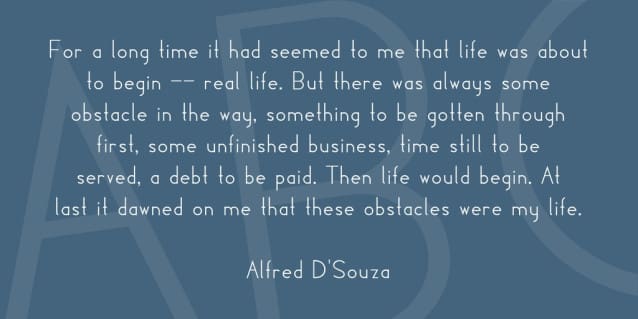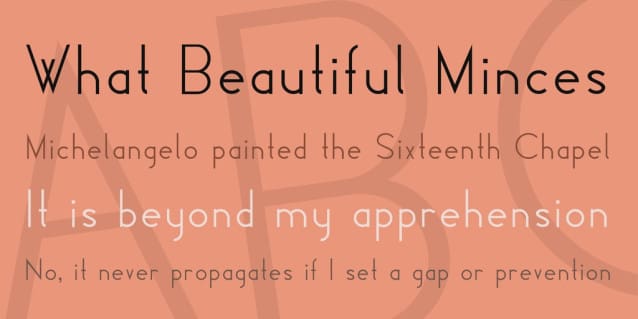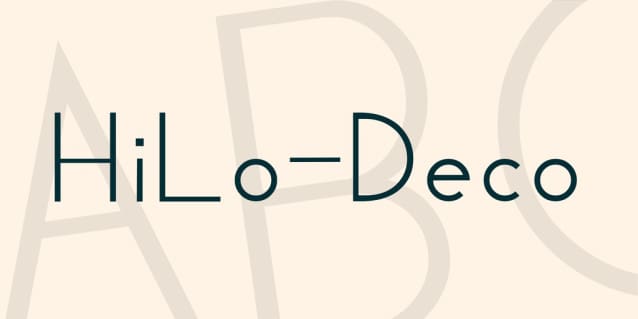
HiLo-Deco Font
HiLo-Deco Font – An original font with an Art Deco feel. It has limited coverage but is usable for titles and decoration. Any cleanups or extensions are welcome. October 2, 2012 update thanks to Lukas Negenborn for adding german glyphs and the Euro symbol! (sorry for the delay posting it Lukas)